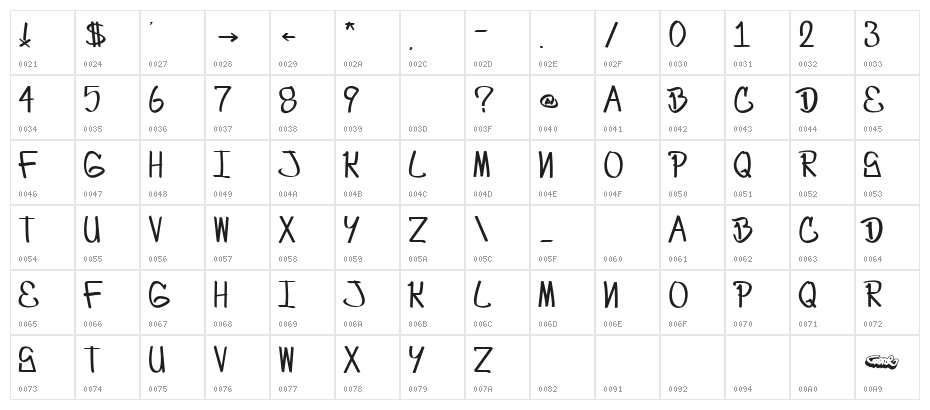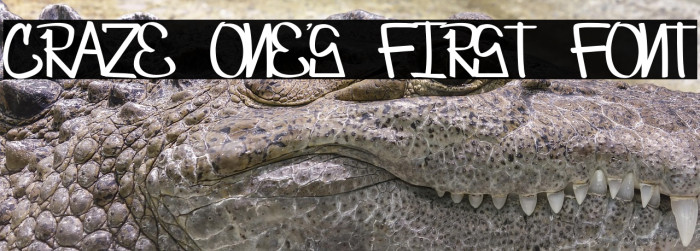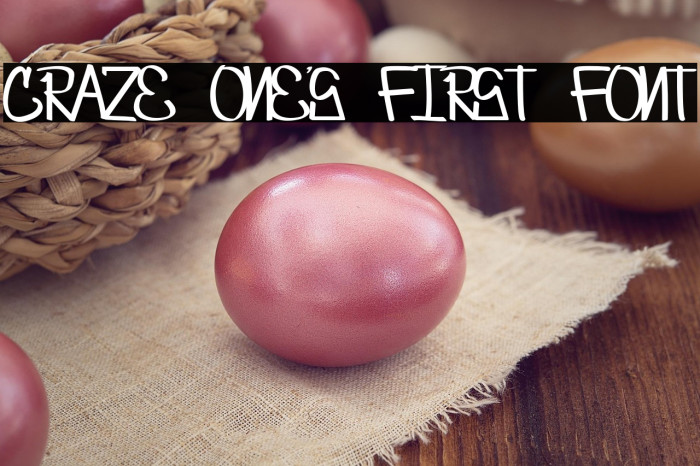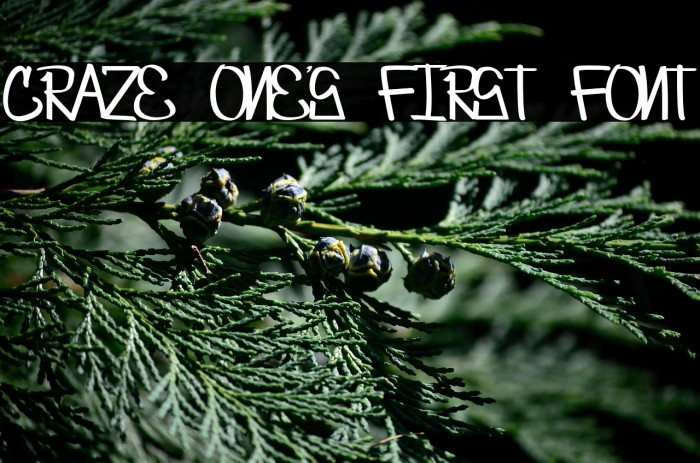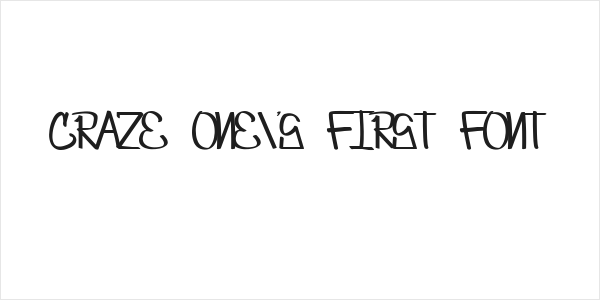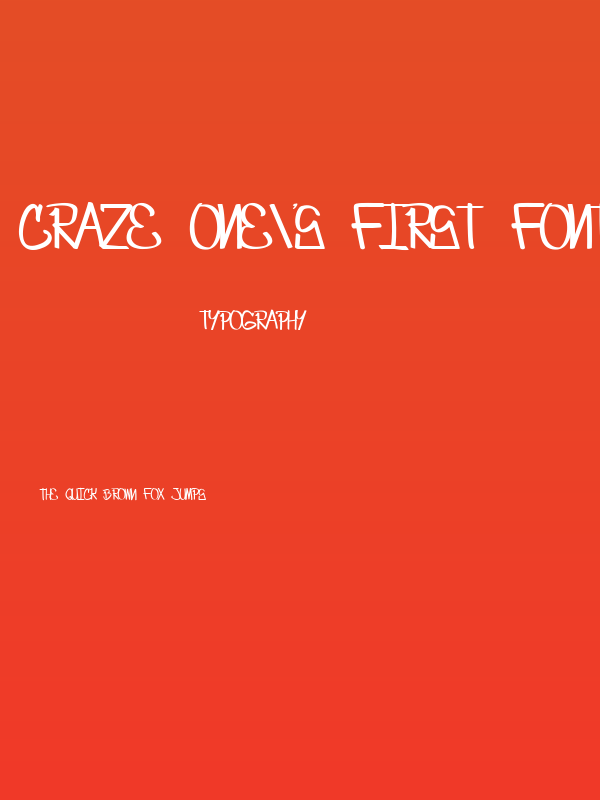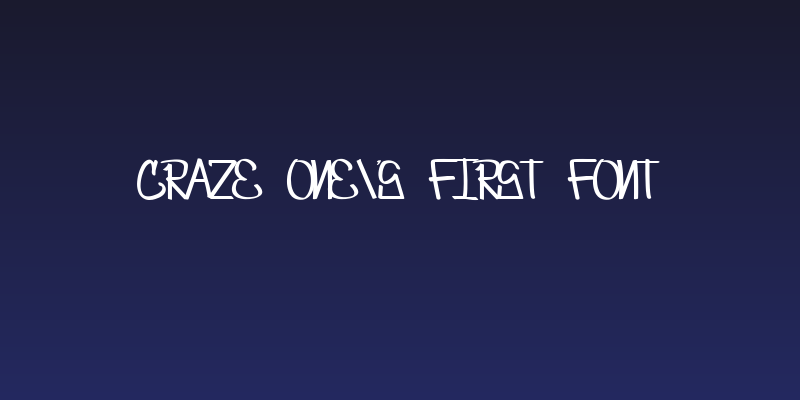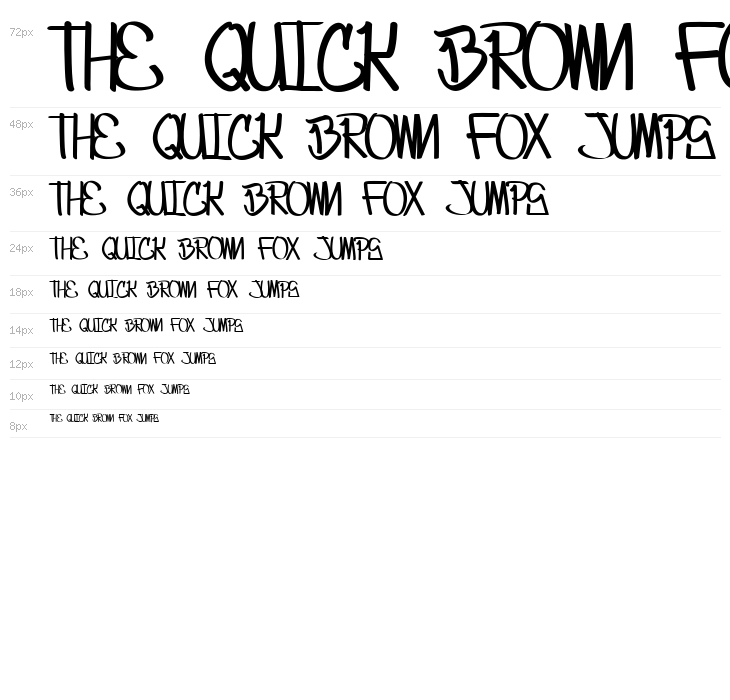
Craze One's first font Font
Craze One's first font Description
This font features a bold, graffiti-inspired style with a playful and energetic appearance. The characters are hand-drawn with a casual, informal feel, showcasing irregular strokes and varying line thicknesses. The uppercase and lowercase letters maintain a consistent style, with exaggerated curves and angles that give the font a dynamic and youthful vibe. The numbers and special characters are equally expressive, fitting seamlessly with the overall aesthetic. This font is ideal for projects that require a bold statement and a touch of urban flair.
| Overall Style | Urban, Playful, Energetic |
| Proposed Projects | Perfect for street art designs, youth-oriented branding, music album covers, and event posters. |